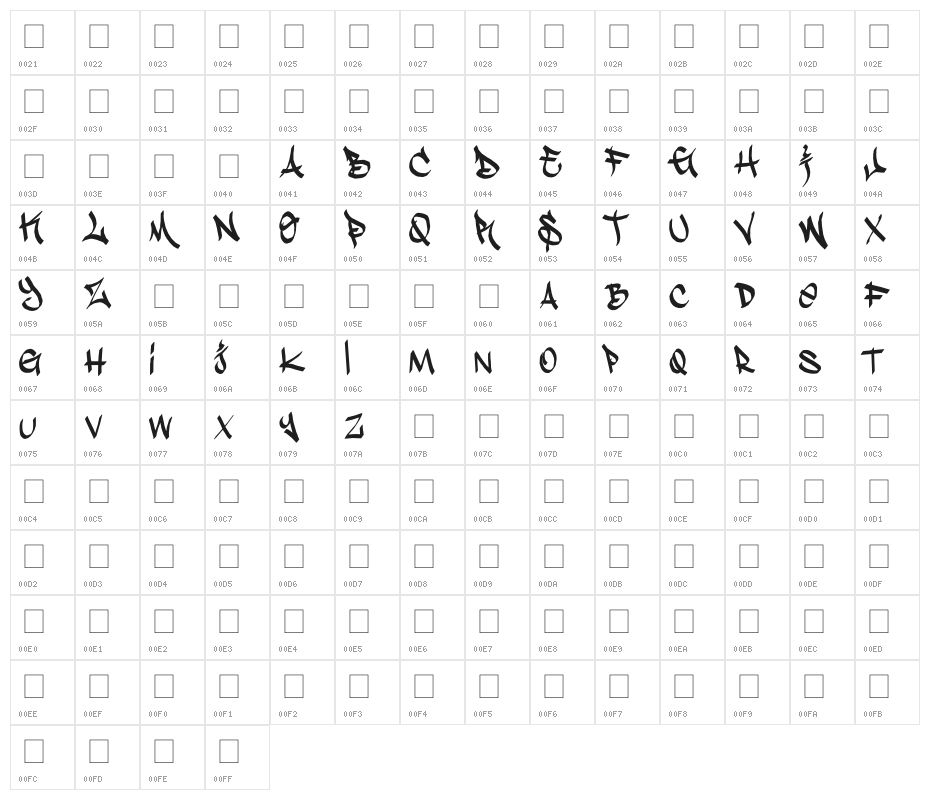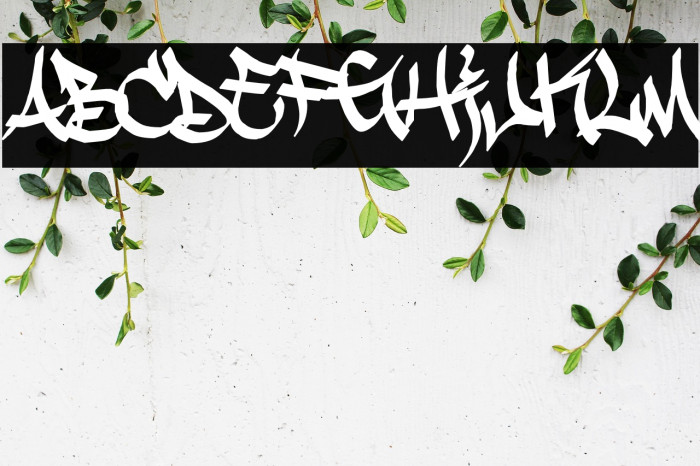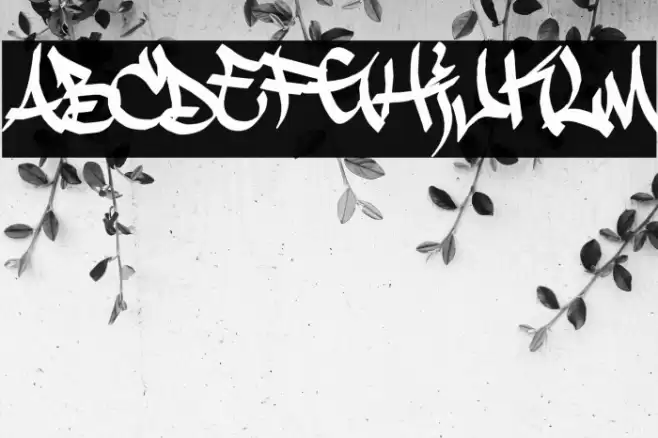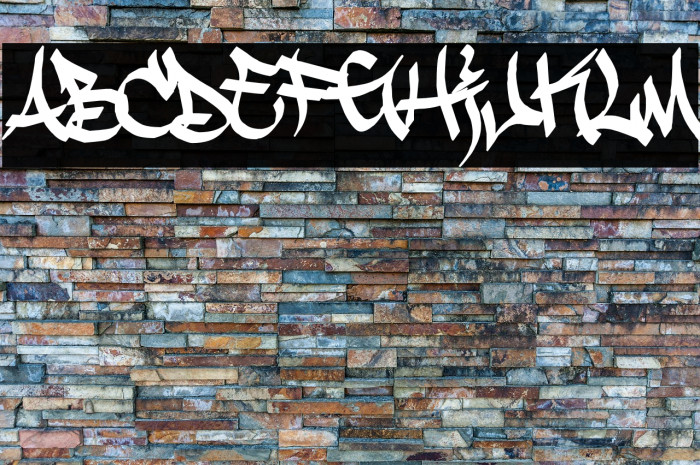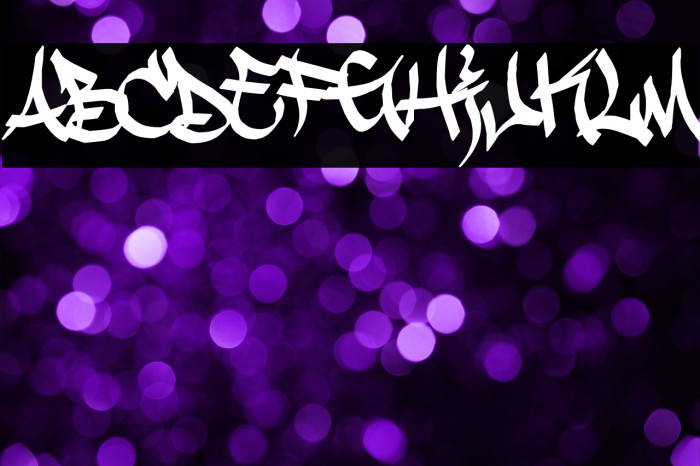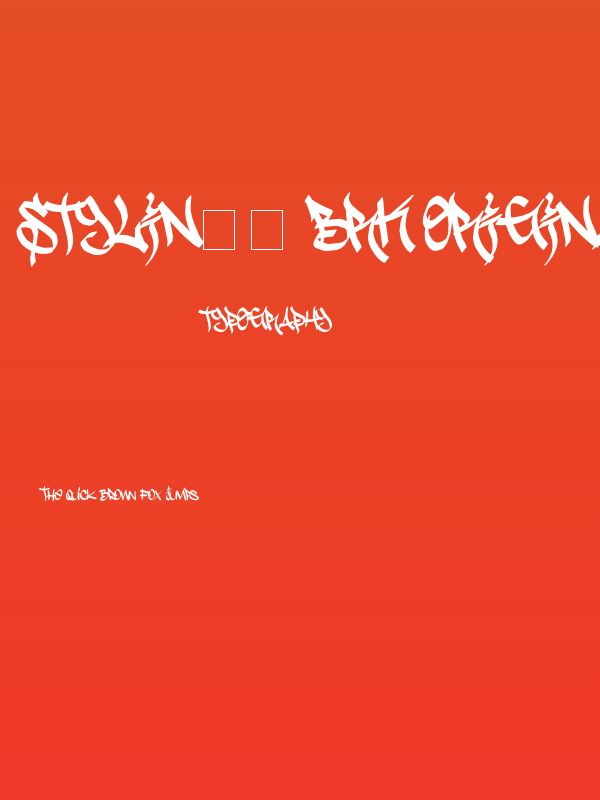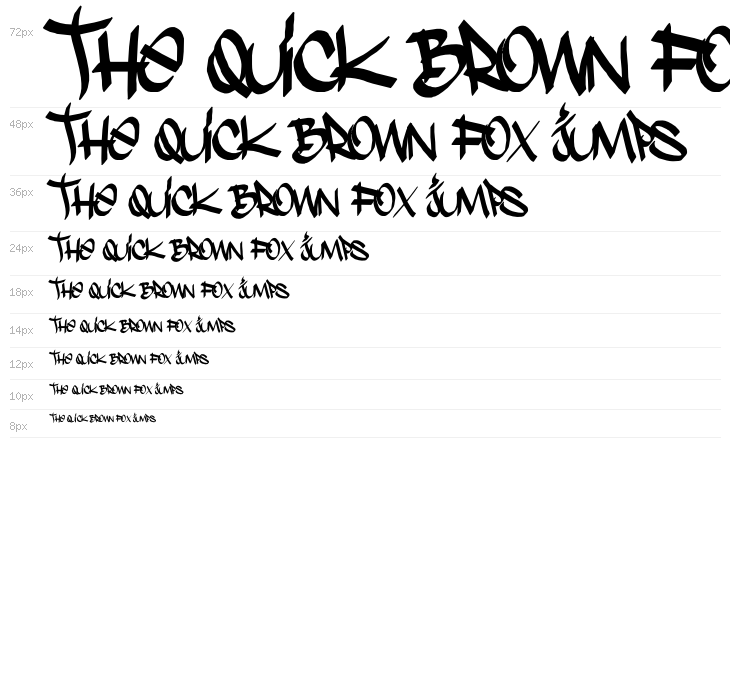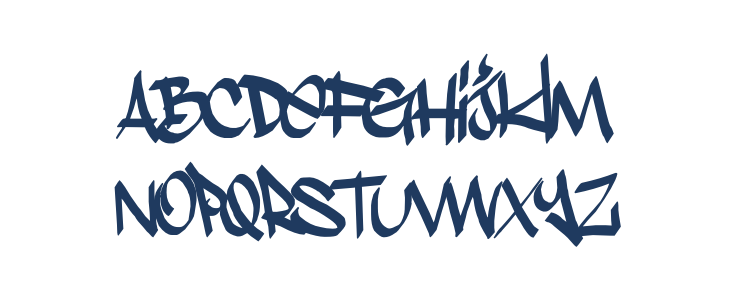
Stylin' BRK Original Font
Stylin' BRK Original Description
This font features a bold, graffiti-inspired style with sharp, angular lines and dynamic strokes. The uppercase letters are highly stylized, with exaggerated curves and unique flourishes that give each character a distinct personality. The lowercase letters maintain the same edgy aesthetic, creating a cohesive look throughout the typeface. The font's design is reminiscent of street art, with a rebellious and energetic vibe that is perfect for making a statement. The characters are tightly spaced, enhancing the boldness and impact of the text. This font is ideal for projects that require a modern and urban feel, such as posters, album covers, or branding for edgy and contemporary brands.
| Overall Style | Modern, Urban |
| Proposed Projects | Ideal for street art-inspired posters, album covers, and edgy brand logos. |